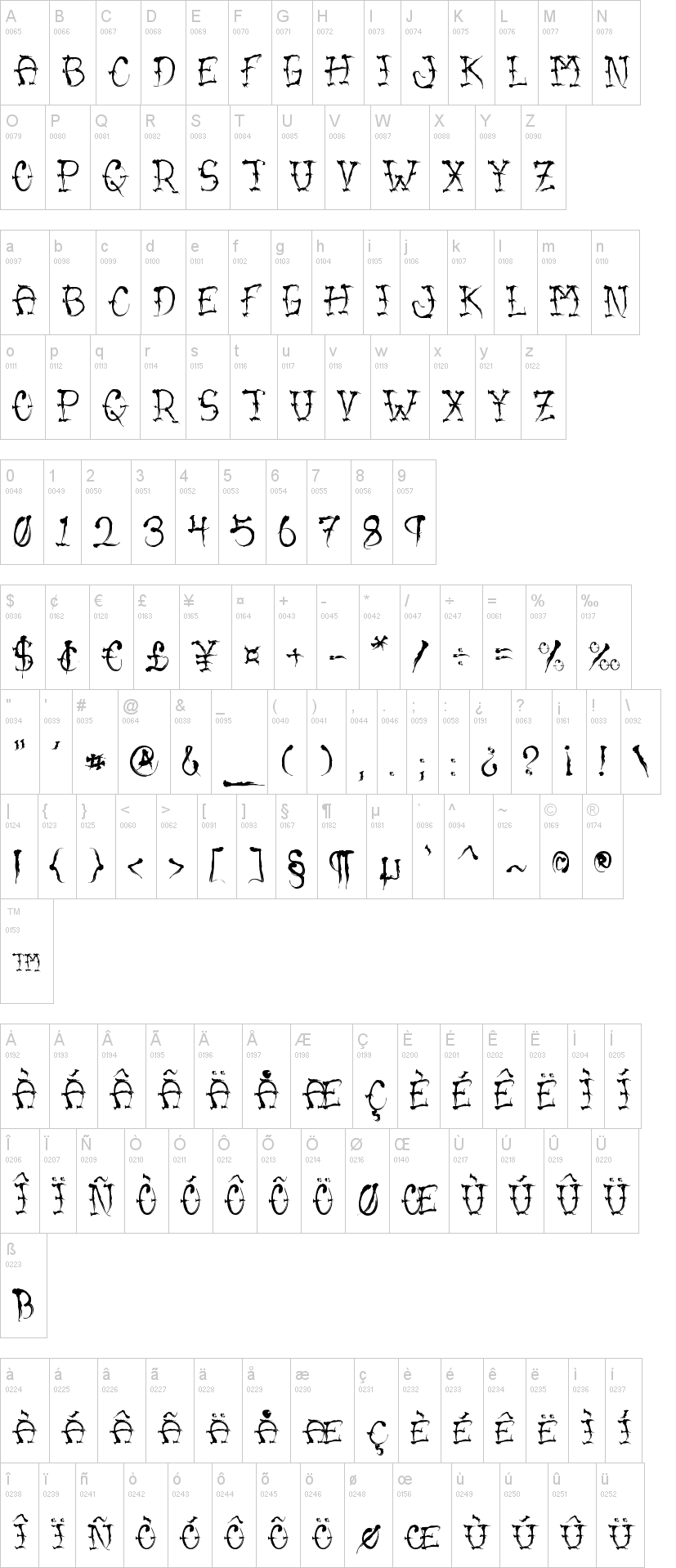
VTC-SumiSlasherOneItalic.ttfVTC-SumiSlasherOneJitteryBasterd.ttfVTC-SumiSlasherOnePunchDrunk.ttfVTC-SumiSlasherOne-SC.ttfVTC-SumiSlasherOneSkinned.ttfVTC-SumiSlasherOneSkinnedRaw.ttfNote of the authorThis is just a simple down and dirty brushed typeface I was messing with and having some fun with in illustrator. there are 7 faces to this set all different and all with complete extended character sets!